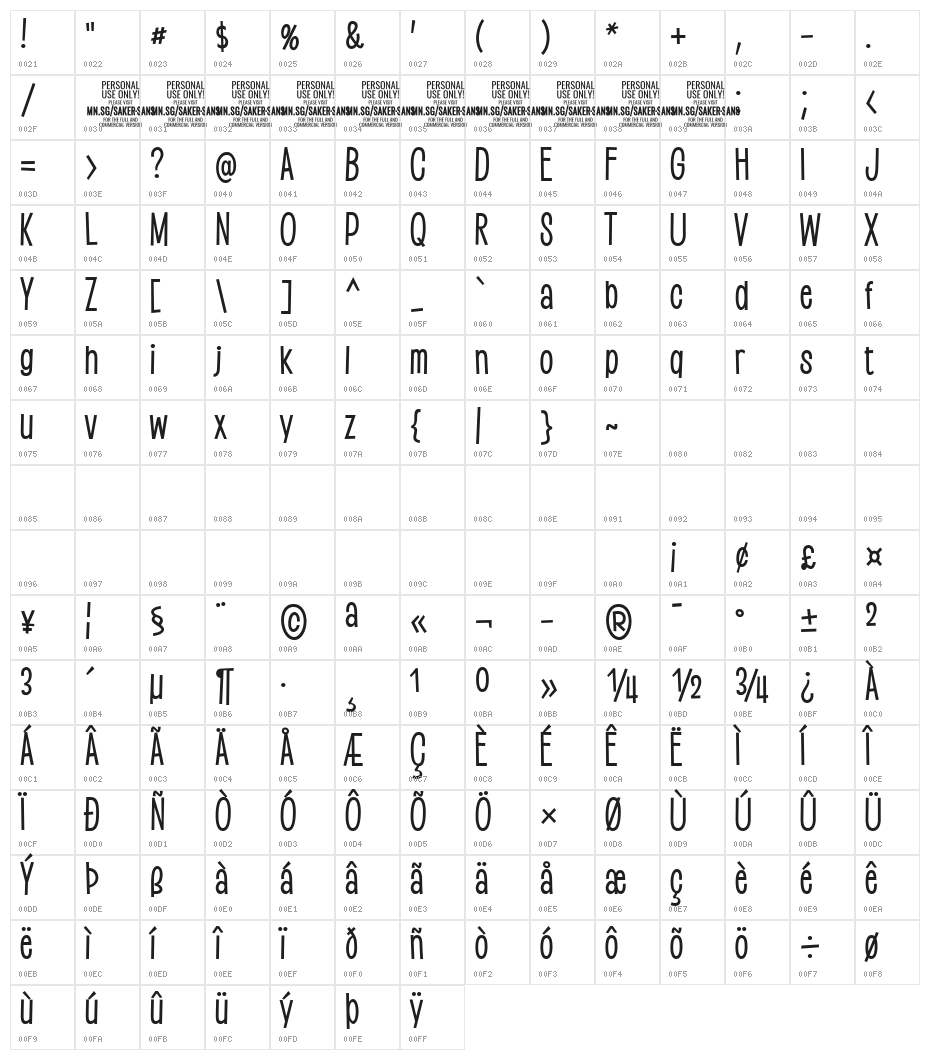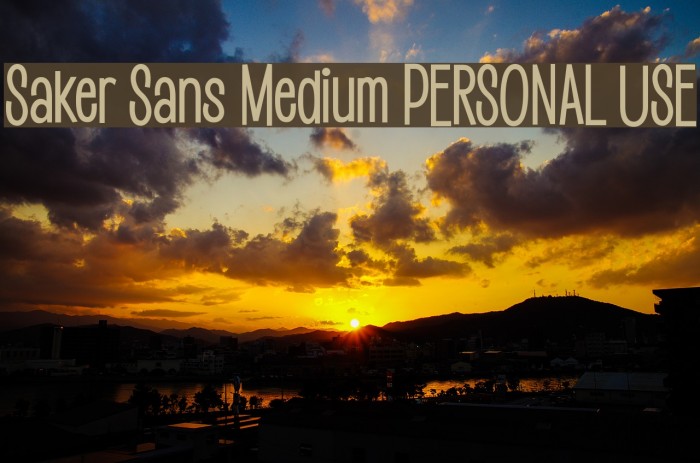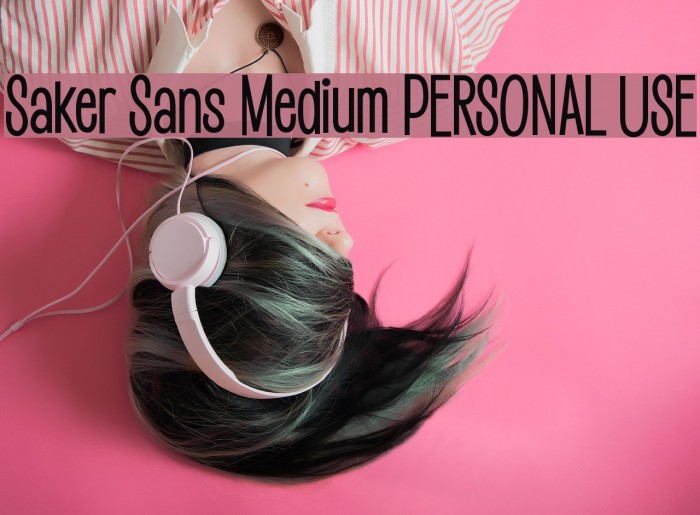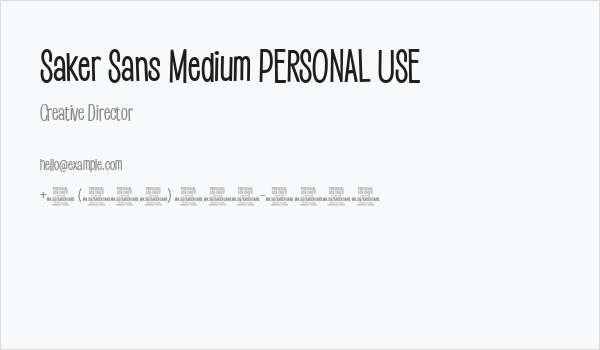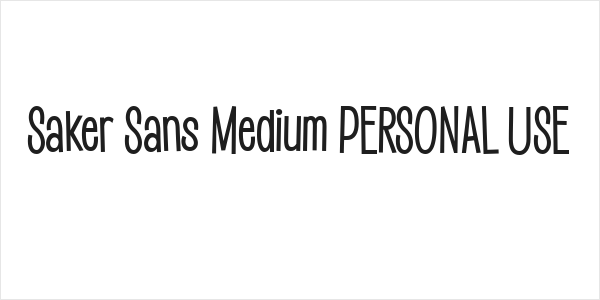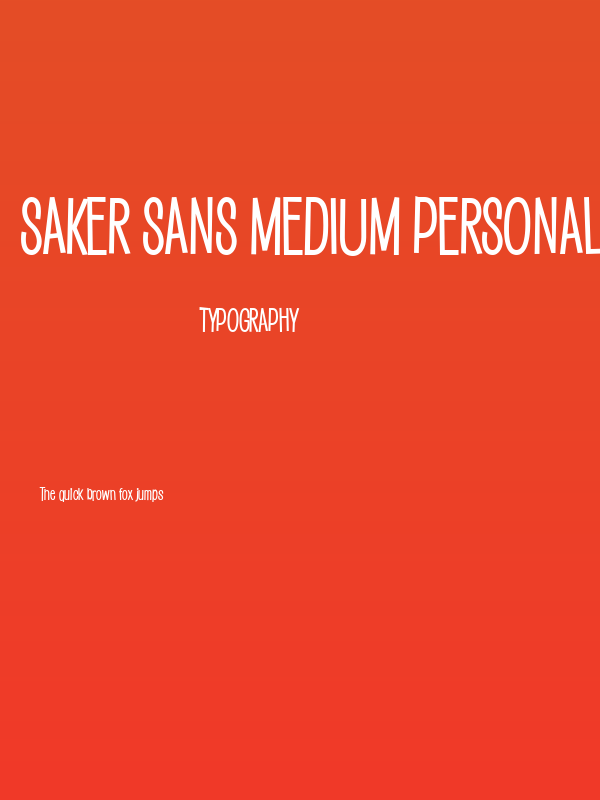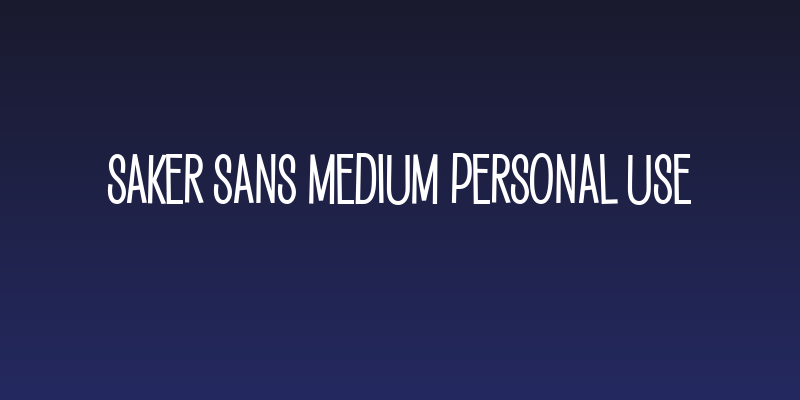
Saker Sans Medium PERSONAL USE Font
Saker Sans Medium PERSONAL USE Description
This font features a clean and modern sans-serif design with a medium weight. The characters are tall and narrow, providing a sleek and professional appearance. The uppercase letters are bold and commanding, while the lowercase letters maintain a consistent style that complements the overall look. The numerals are clear and easy to read, making them suitable for various applications. Special characters are well-defined, adding versatility to the font's usage. The uniformity in stroke thickness and the absence of serifs contribute to its contemporary aesthetic.
Use CaseHeadlines, Logos, Advertising
Proposed ProjectsIdeal for branding, advertising, and editorial design where a modern and clean look is desired.